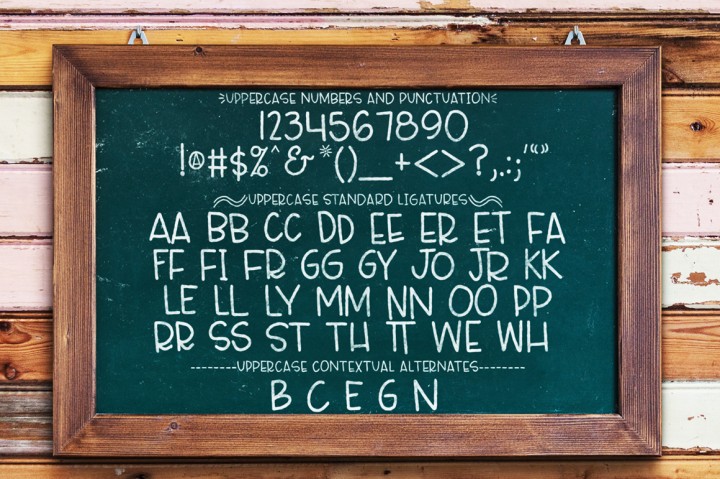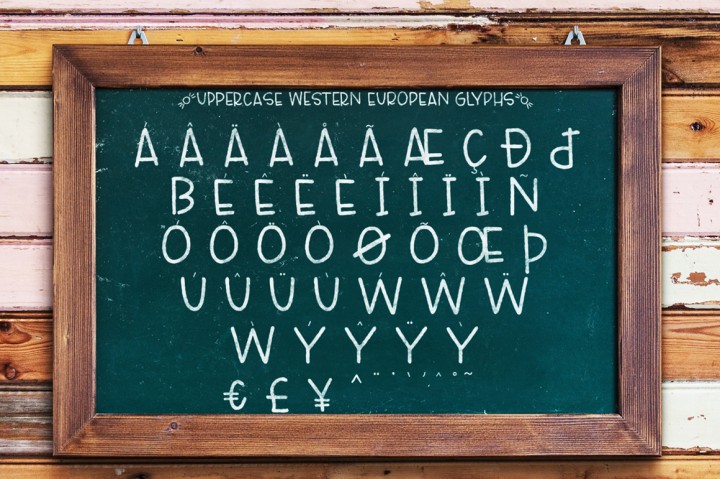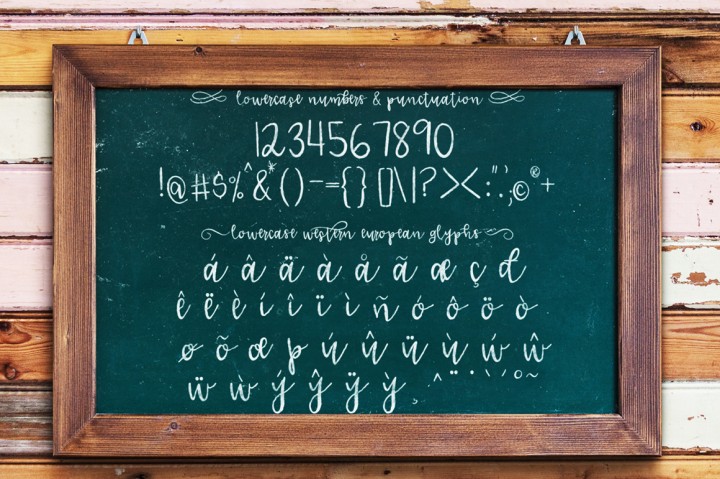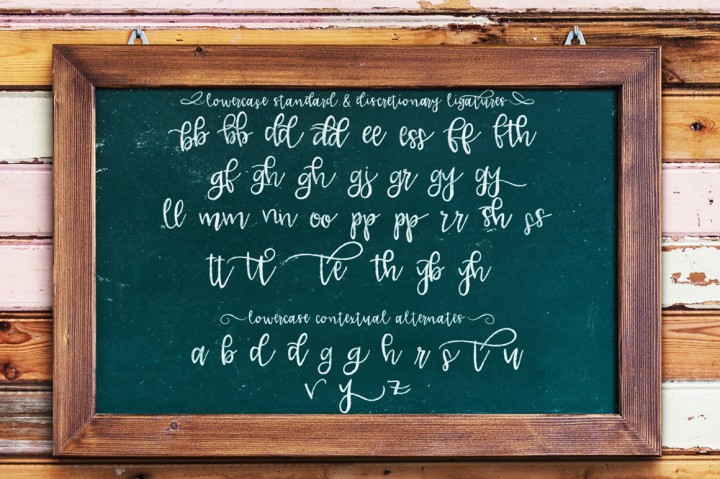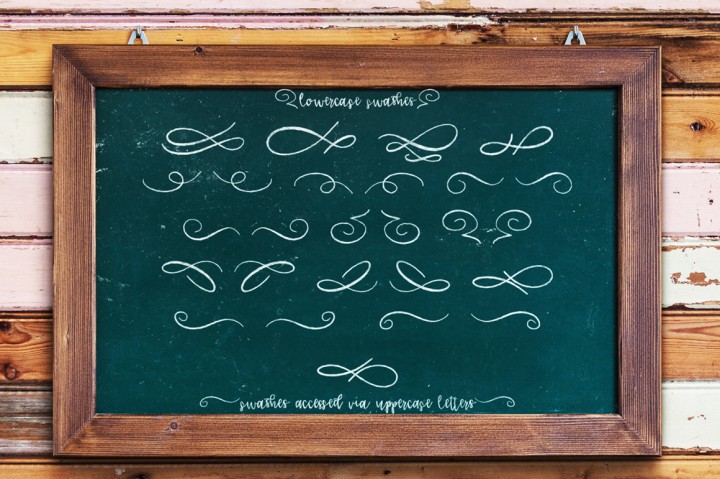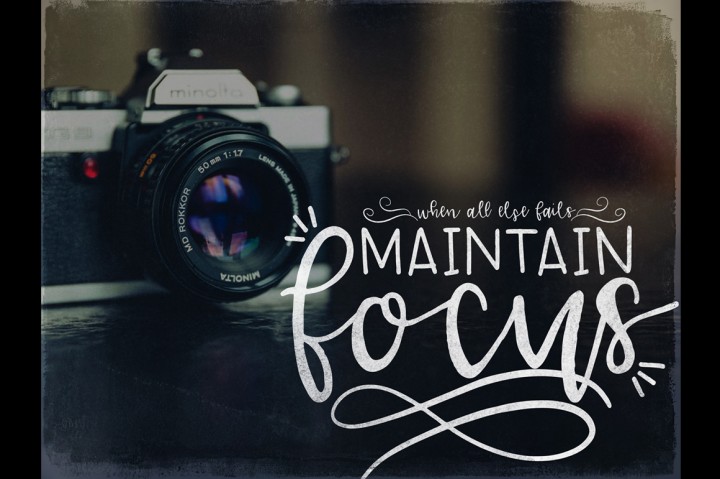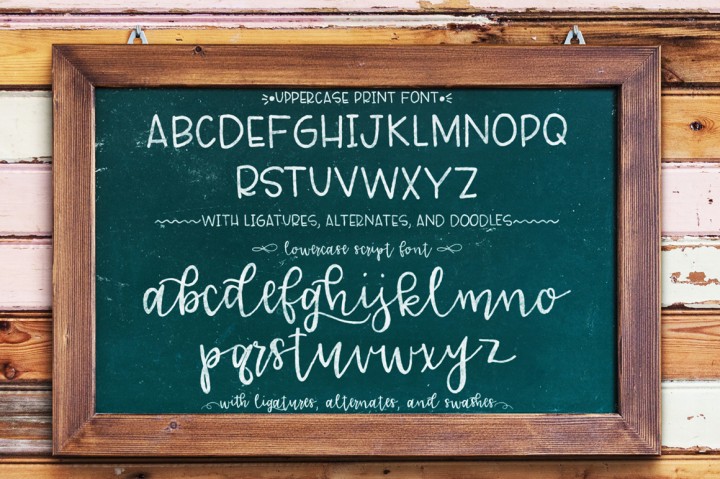
Lucille Hand Lettered Font Duo
Give your designs a hand-letterd dose of personality with font duo, Lucille!
Lucille Handlettering includes 3 styles (in two fonts), created to pair perfectly together to bring your designs to life: Uppercase Print, Lowercase Script, and Doodles/Swashes.